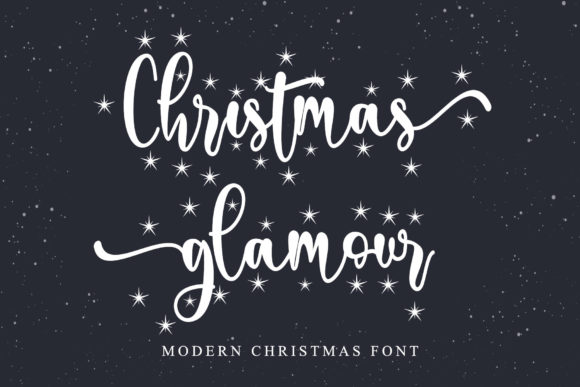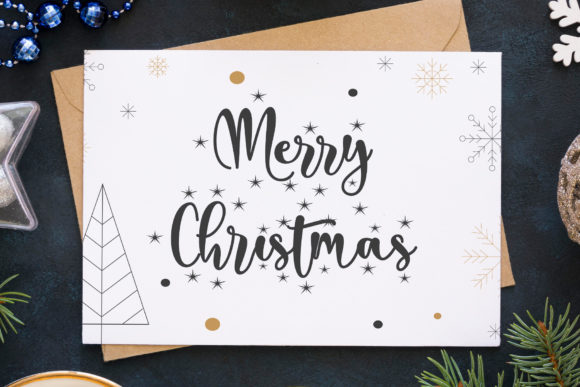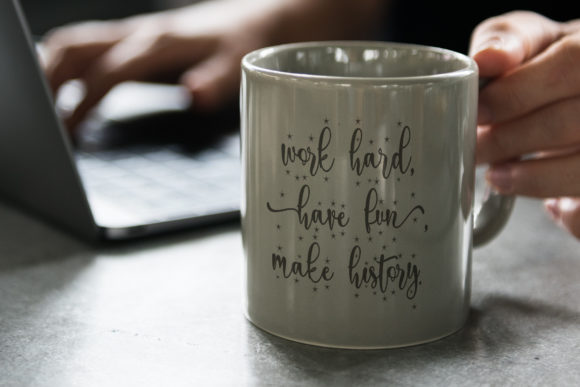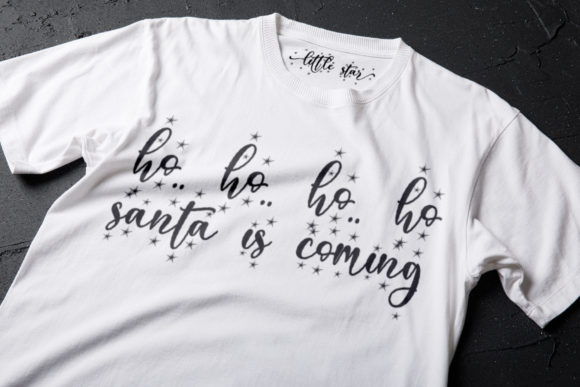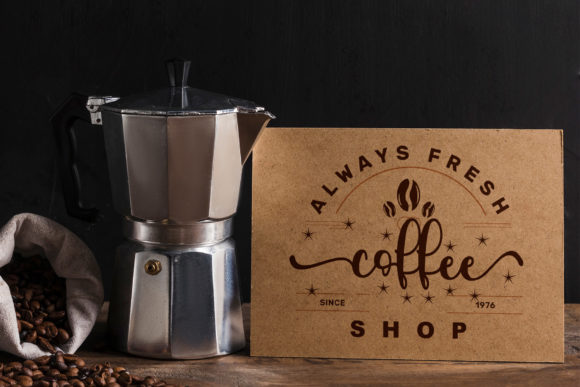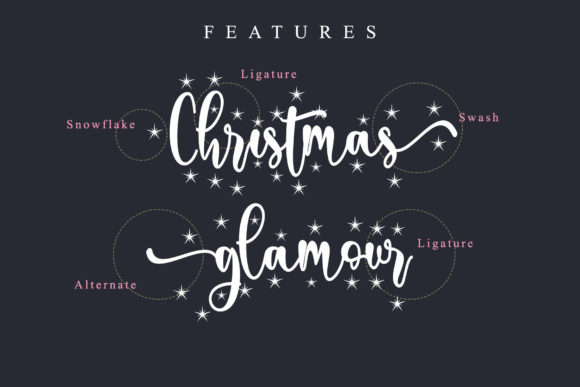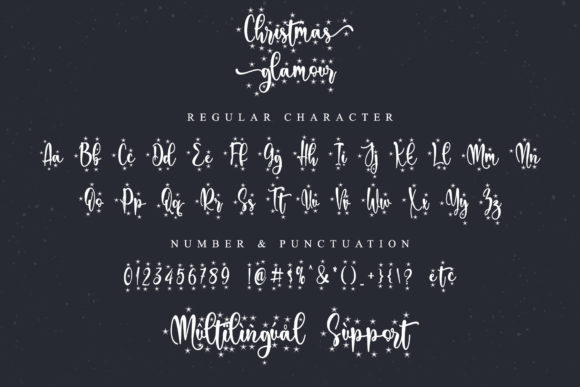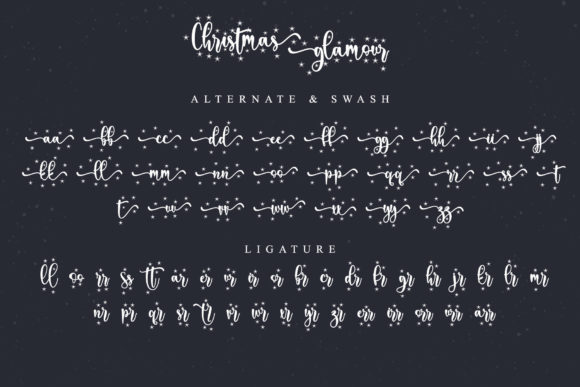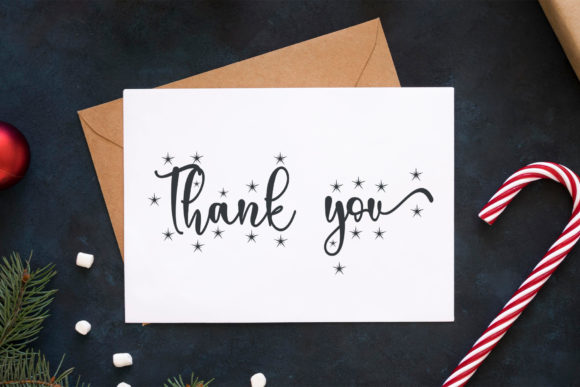
Christmas Glamour Font
About Christmas Glamour Font
Christmas Glamour is a festive and sweet calligraphy typeface with characters that dance along the baseline. It will add a luxury spark to any design project that you wish to create! This font is PUA encoded which means you can access all of the amazing glyphs and ligatures with ease!